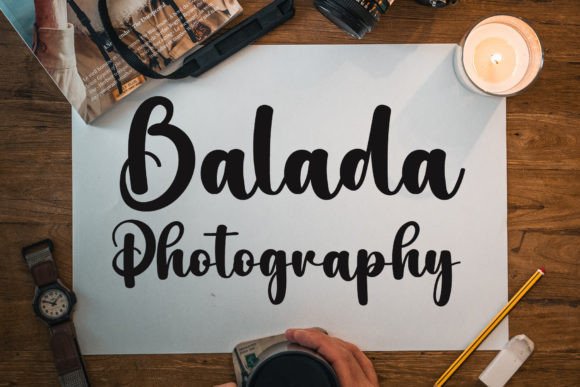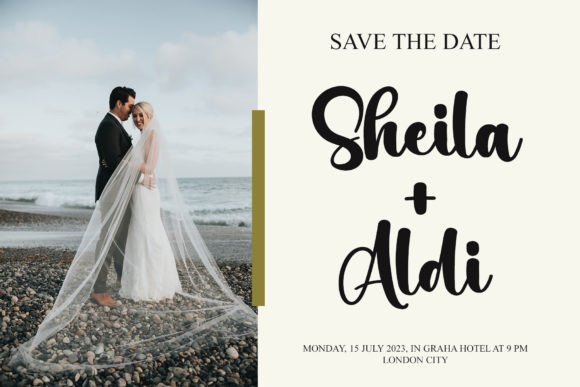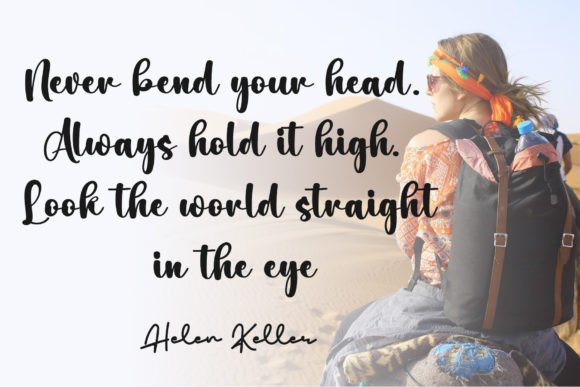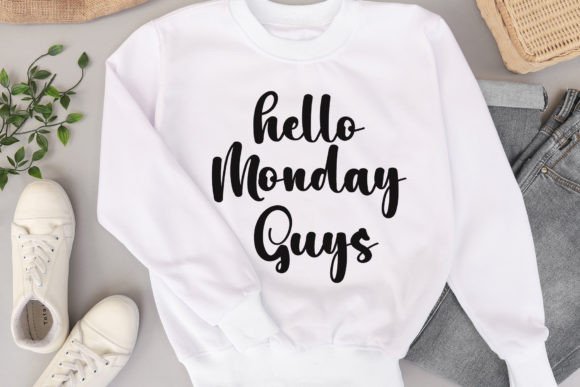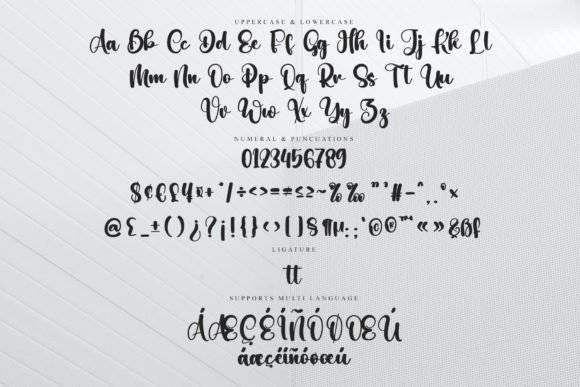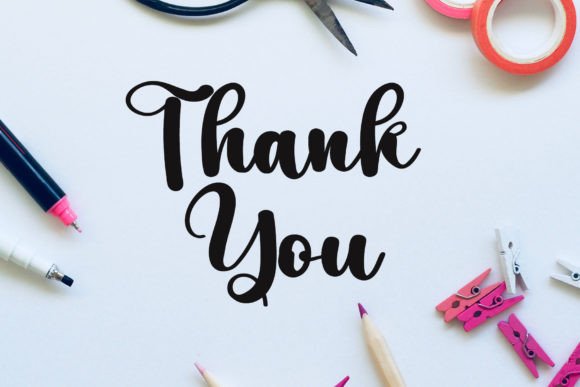
The Sweetest Addition to Your Design Palette: Butter Cake Font
There’s nothing quite like the feeling of finding that perfect font to elevate your design project. It’s like stumbling upon a hidden treasure that makes your entire creative process click into place. For designers, this moment is pure magic, and it’s exactly what the Butter Cake Font is designed to deliver.
This sweet and cursive handwritten font is the perfect addition to any design idea. Whether you’re working on a branding project, creating a wedding invitation, or designing a greeting card, the Butter Cake Font adds a joyful and romantic touch that’s sure to leave a lasting impression. Its gentle curves and elegant lines make it the perfect fit for a variety of design projects, and its casual yet fancy vibe is sure to delight any designer looking to add a little extra something special to their work.
Key Features of Butter Cake Font
- Font Family: A modern script font designed to evoke the feeling of a warm, comforting treat.
- Unique Characteristics: Features a unique, hand-drawn feel with subtle imperfections and variations in line weight, giving it a warm, organic appearance.
Designer Review: Butter Cake Font
Overall, I think the Butter Cake Font is a charming addition to any design project. ✨ Its playful, cursive script is reminiscent of handwritten notes and adds a touch of warmth to digital designs.
The font’s versatility shines through in its various weights and styles, making it suitable for a wide range of applications, from logos to body text. ✨ The smooth, rounded edges also make it easy on the eyes and contribute to its overall aesthetic appeal.
- ⚠️ Limited italic styles: While the font offers various weights, the italic styles are somewhat limited, which might restrict its use in certain contexts.
In conclusion, the Butter Cake Font is a delightful choice for designers seeking a friendly, approachable look. While it may have some limitations, its strengths far outweigh its weaknesses, making it a solid addition to any design arsenal.
The Butter Cake Font is ideal for use in bakeries, cafes, and restaurants, as well as for creating invitations and other paper goods.
Use the font in combination with images of baked goods or other related graphics to create a cohesive and visually appealing design.
Experiment with different font sizes and styles to add depth and interest to your design.
The Butter Cake Font is commonly used for:
Creating bakery menus and promotions
Designing invitations and other paper goods
Adding a touch of whimsy and personality to brand materials